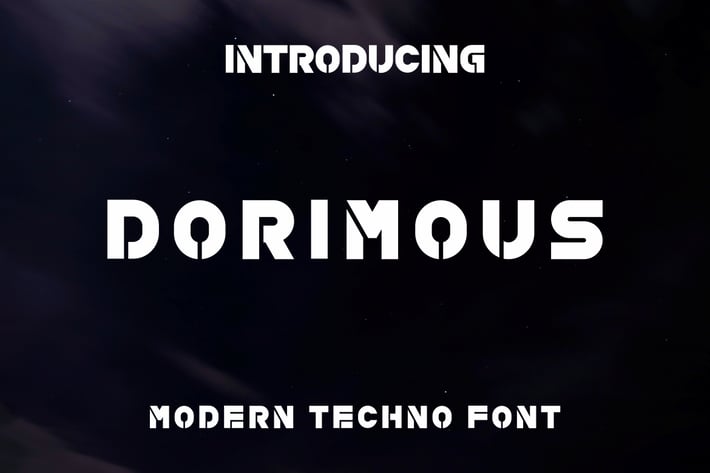
DORIMOUS FONT
Introducing our new product DORIMOUS FONT - Modern Font
DORIMOUS FONT - Modern Font is a bold and authentic display font. The font is suitable for any branding project like logo, t-shirt printing, esport, and many more. outstanding in a wide range of contexts.